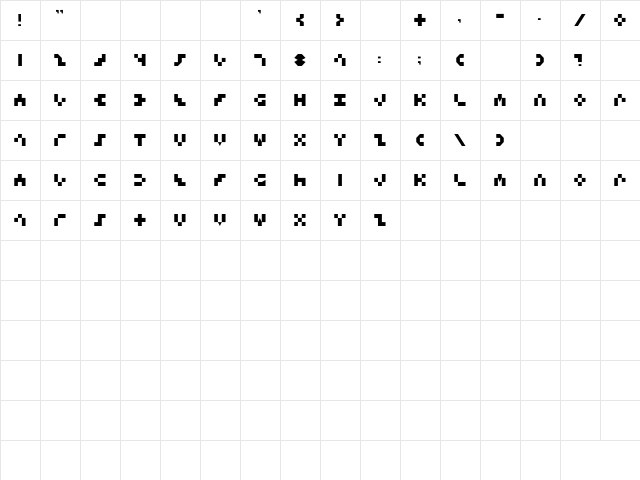
Complete Keystone Normal glyph index. Displaying only characters natively supported by Keystone Normal font.
Keystone is a composed and adaptable typeface that performs quietly and consistently across a wide range of design contexts.